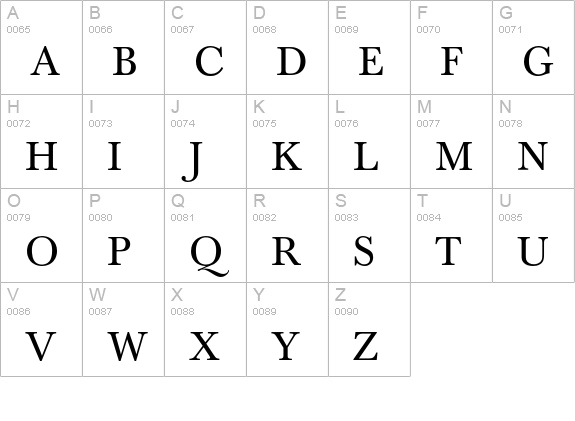
Baskerville Regular + Math Pi Font Details
Baskerville Regular + Math Pi is the standard, neutral variant in the Baskerville typeface family \xE2\x80\x94 well suited to general body text, paragraphs, and standard typographic work.
Baskerville Regular + Math Pi font combination is a harmonious blend of classic elegance and mathematical precision. The timeless Baskerville Regular typeface exudes sophistication and readability, making it a popular choice for various design projects. Paired with the Math Pi symbols, this font set is perfect for academic papers, technical documents, or any project requiring a seamless integration of text and mathematical equations. The best part? This stunning font duo is available for free download at FontsMarket.com. Whether you're a student, professional, or design enthusiast, you can enhance your work with the Baskerville Regular + Math Pi font combination without breaking the bank. Embrace the beauty of typography and mathematics with this versatile and accessible font pairing.